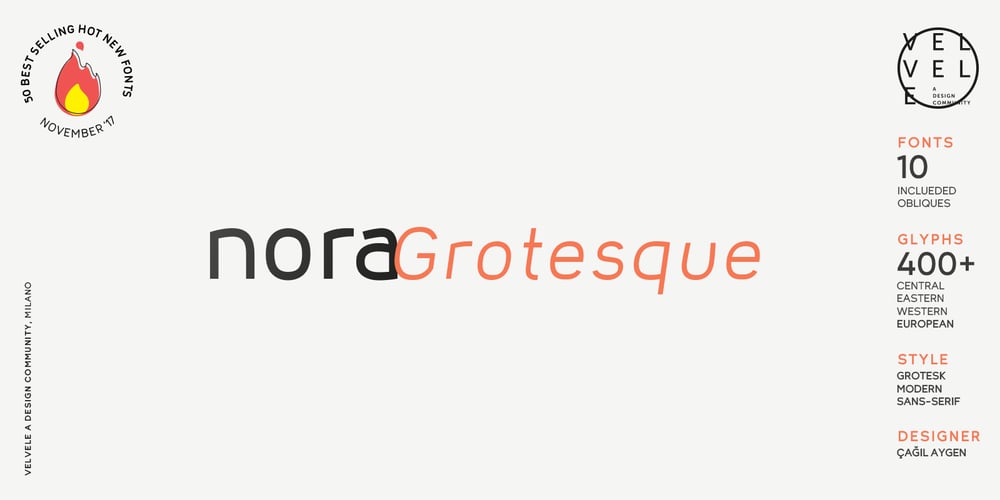
Nora Grotesque Font Family was designed by Çağıl Aygen and published by vve.type. Nora Grotesque contains 10 styles and family package options. Nora Grotesque is a modern sans serif type family of five weights plus true matching obliques, all completely equipped with opentype features, fractions, lining numbers, old style figures, capsular numbers, superscript and inferiors. It has been designed parallel within the neogrotesque universe of typefaces and is inspired by humanist proportions and humanist-grotesk features in multiple languages, support Central and Eastern European as well as Western European languages. Working on Nora Grotesque type family, we’ve aimed to create a modern geometric grotesk with the widest implementation range, a reliable workhorse. Nora Grotesque is equipped for complex, professional typography with a high x-height for maximum legibility and a powerful personality then other alternates. We’ve been especially careful working on the uniq geometry of each glyph, both from the point of view of visual correctness and forms continuity.